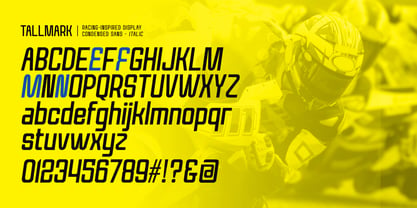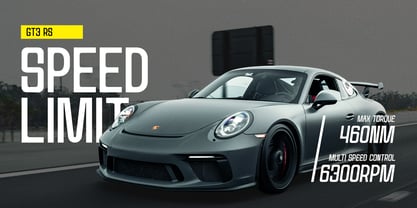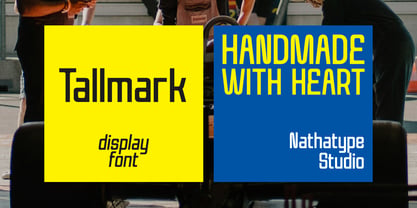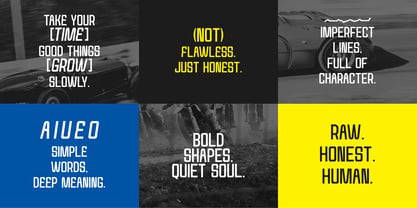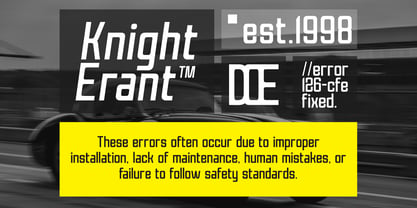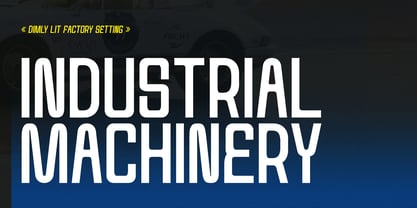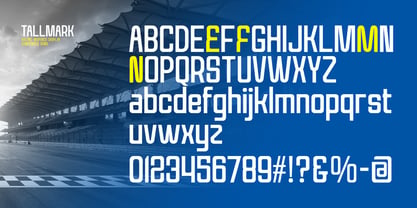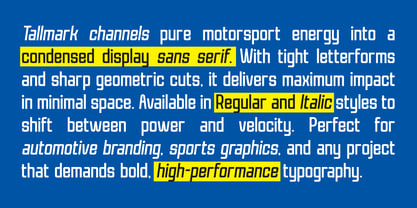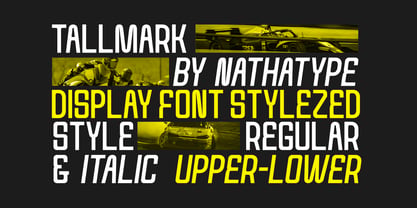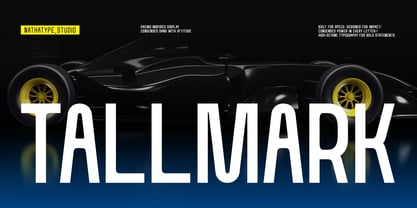
Tallmark
by Nathatype
The Tallmark Font Family was designed by Donis Miftahudin and published by Nathatype. Tallmark contains 2 styles and family package options. More about this family
Tallmark is a high-impact condensed sans serif font inspired by the speed, precision, and adrenaline of the racing world. Designed with a narrow structure and dynamic proportions, this typeface captures the essence of motion and performance, making it the perfect choice for projects that demand energy and bold visual presence. Its streamlined letterforms and compact width allow for maximum efficiency in tight spaces while maintaining a strong, commanding look. In addition, enjoy the features here. Features: Multilingual Supports PUA Encoded Numerals and Punctuations Tallmark fits in logos, quotes, branding, posters, and many more designs. Find out more ways to use this font by taking a look at the font preview. Thanks for purchasing our fonts. Hopefully, you have a great time using our font. Feel free to contact us anytime for further information or when you have trouble with the font. Thanks a lot and happy designing.
Designers: Donis Miftahudin
Foundry: Nathatype
Tallmark